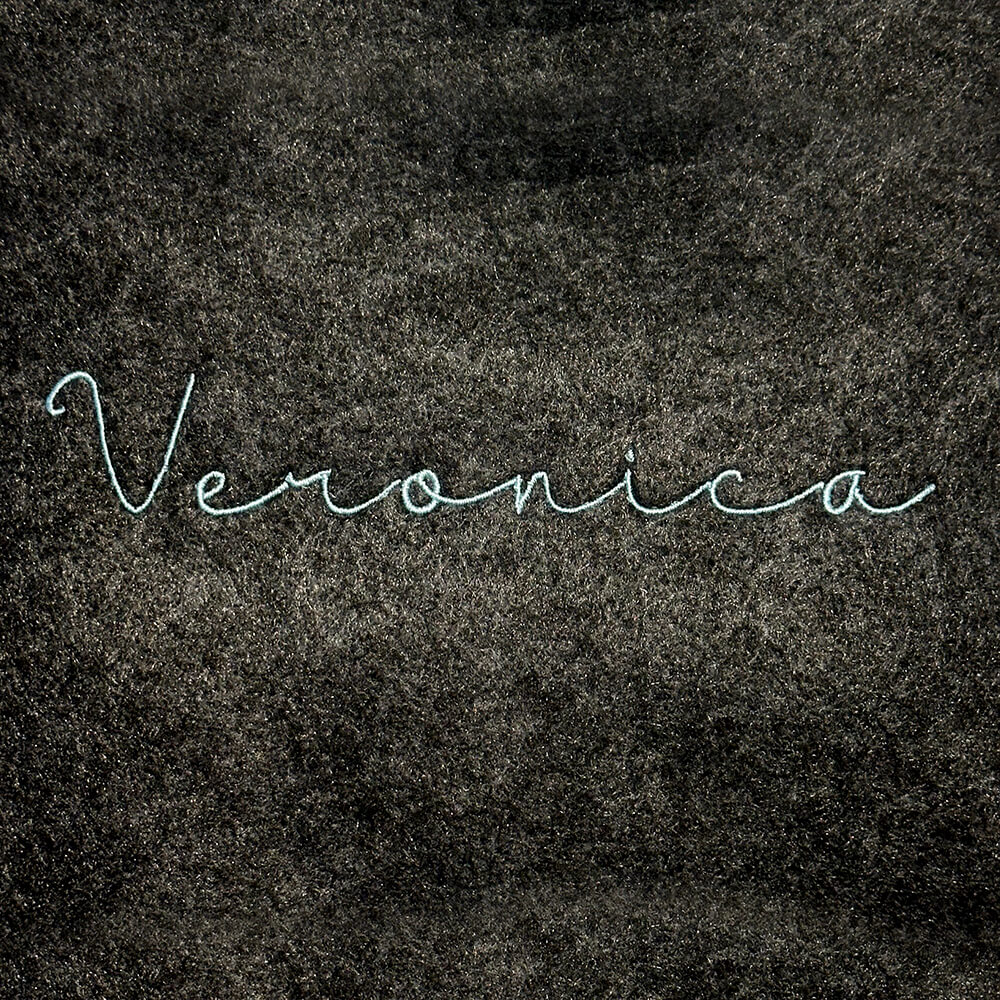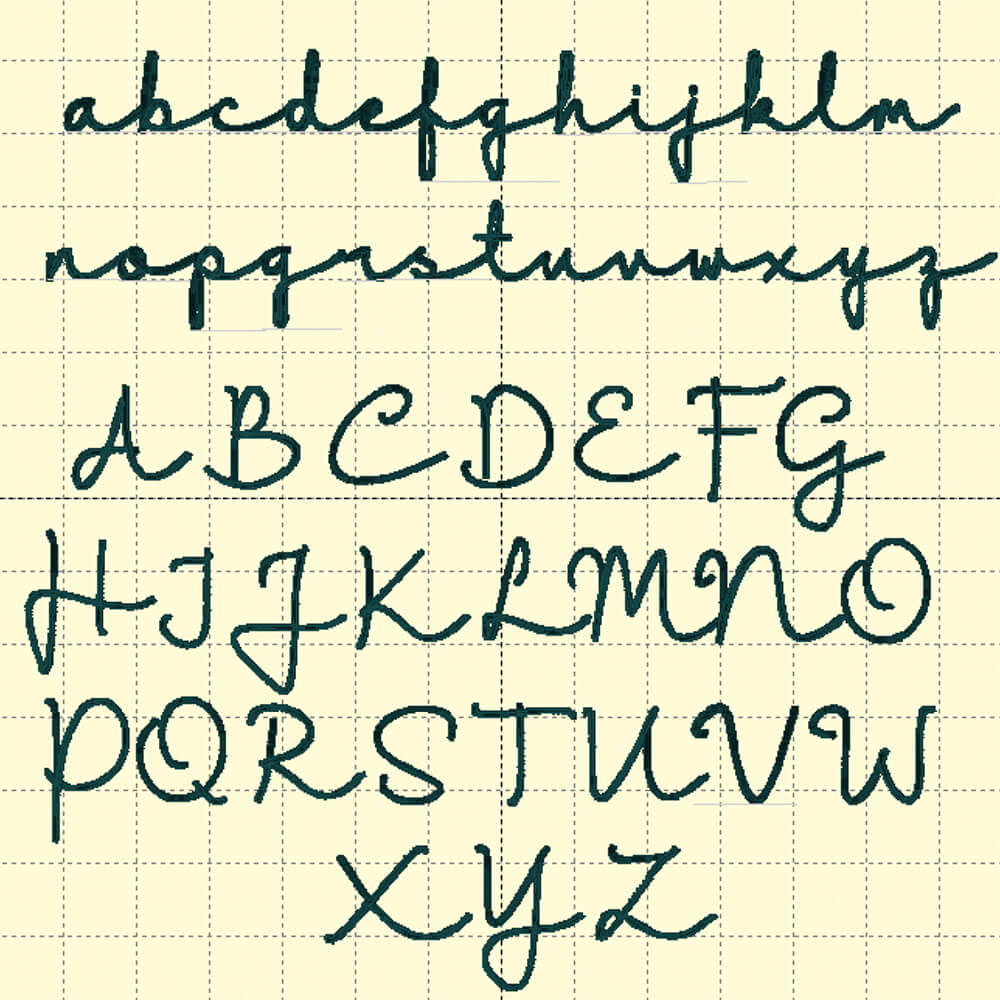
Veronica Script Font
The Veronica machine embroidery script font in BX format features elegant letters with graceful curves for a timeless and sophisticated stitched look
Veronica Script Font – Machine Embroidery Font
All upper case and lower case letters